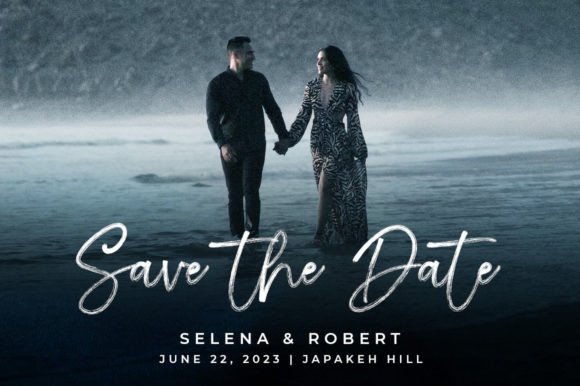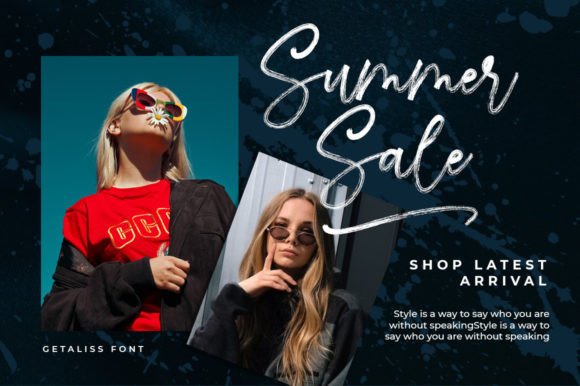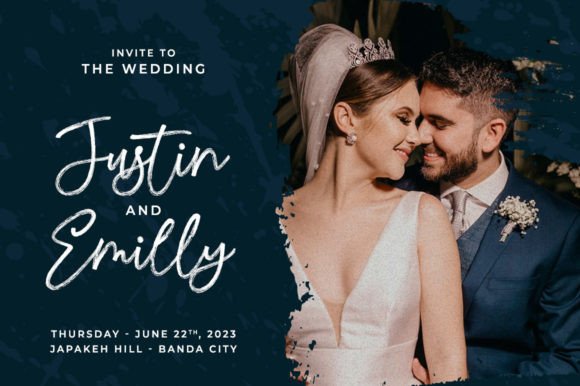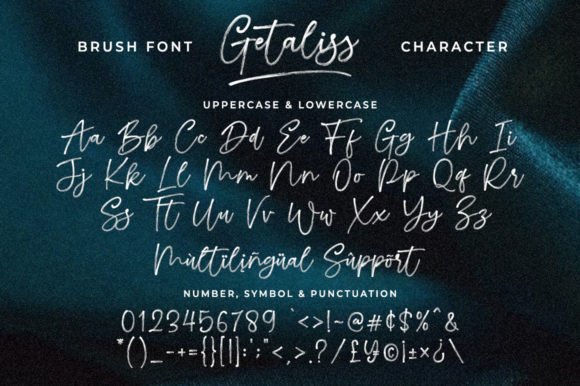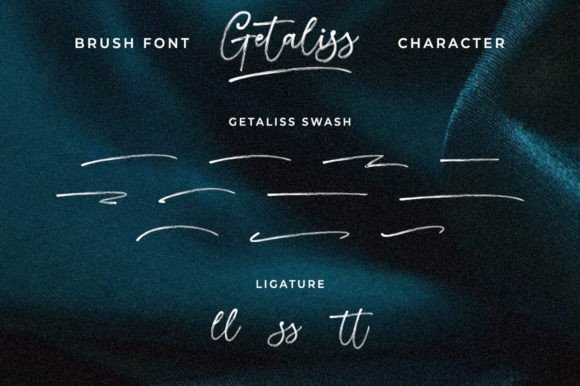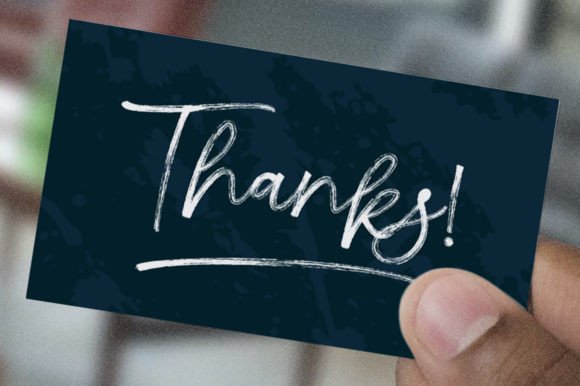
The Getaliss Font: A Casual Script to Elevate Your Designs
An Honest Review of Getaliss Font
What I Love About Getaliss ✨
- 💫 Elegant yet casual: Getaliss strikes the perfect balance between sophistication and playfulness.
- ✅ Highly versatile: Suitable for branding, invitations, merchandise, websites, advertisements, magazines, and more.
- 🌈 Extensive character set: Includes a wide range of letters, numbers, and punctuation marks.
- 👍 Easy to read: Despite its script nature, Getaliss remains legible even at smaller font sizes.
- ⚠️ Limited use of bold weights: Getaliss is primarily designed for regular and light weights.
- 🤔 Not ideal for body text: While readable, Getaliss is best suited for headlines and titles.
- Explore OpenType features, such as glyphs and stylistic alternates, to add more creativity to your design.
The Backstory of Getaliss Font
Getaliss was designed with the intention of creating a friendly, approachable script font. The designer aimed to craft a font that would be both elegant and casual, making it suitable for a wide range of projects. While the exact inspiration may be unknown, it’s clear that Getaliss has become a popular choice among designers and crafters.
| Font Name | Getaliss Font |
| Author | gatype |
| What type of projects is Getaliss suitable for? | Getaliss is suitable for a variety of projects, including branding, invitations, merchandise, websites, advertisements, magazines, and more. |
| Does Getaliss support OpenType features? | Yes, Getaliss supports OpenType features, including glyphs and stylistic alternates. |